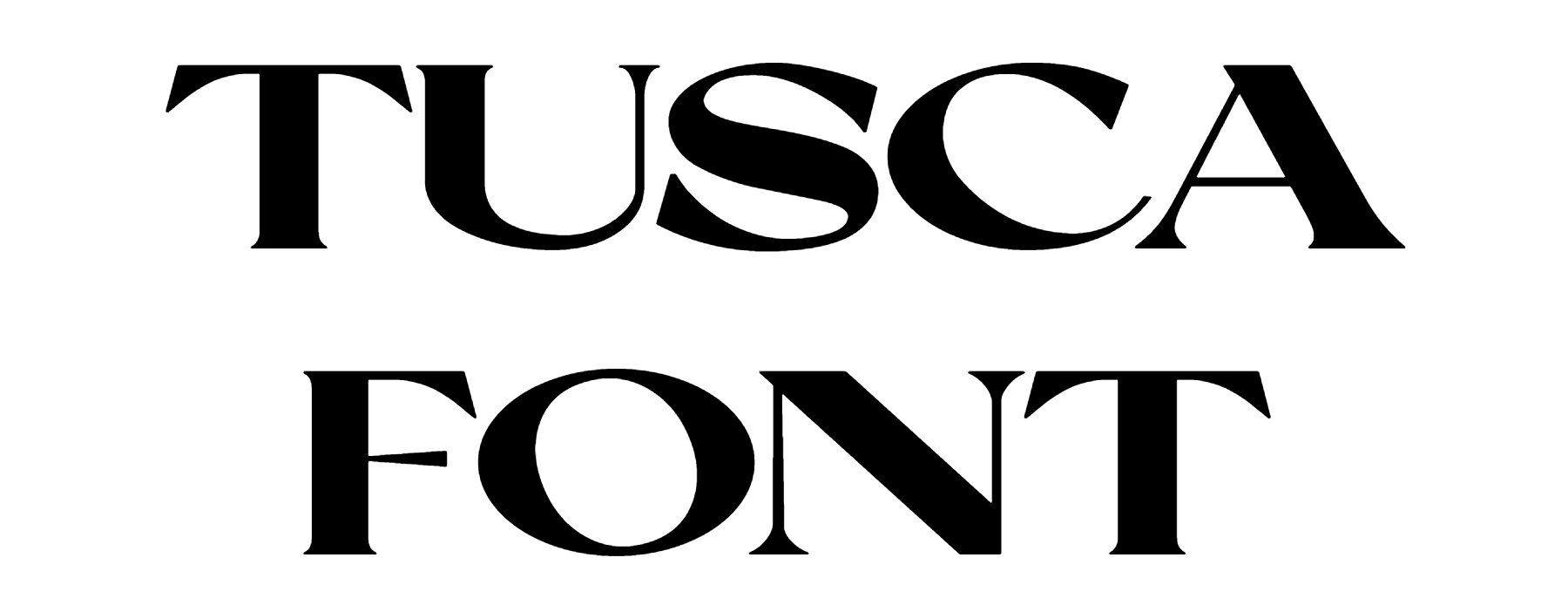
Tusca
Tusca is a serif font created by Usman Albaehaqi and released through Graphicxell (2023). Small strokes at the ends of its letters (the serifs) give it a classic, trustworthy look. It's a free download, and you can try it with your own text in the preview above first.
- Designer: Usman Albaehaqi
- Publisher: Graphicxell
- OpenType features: Ligatures (including optional ones)
- Extra characters: 14 copy-and-paste alternates (Private Use Area)
With complete upper and lowercase letters and all ten digits, Tusca is ready for real wording, not just a single headline. Common punctuation such as &, !, ? and @ is included as well. It also has the accented letters you need for Spanish, French, German, Portuguese and Italian.
Designers usually reach for fonts like Tusca when they're making book covers, magazine headlines and classic branding. Serif fonts shine in headlines and printed text. For long paragraphs on phones, check that it still reads well at small sizes.
Yes. Tusca includes the accented letters needed for Spanish, French, German, Portuguese and Italian, so it works for more than just English.